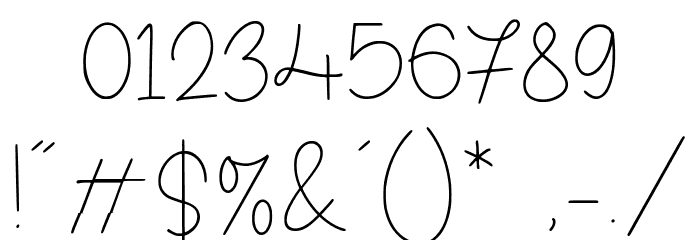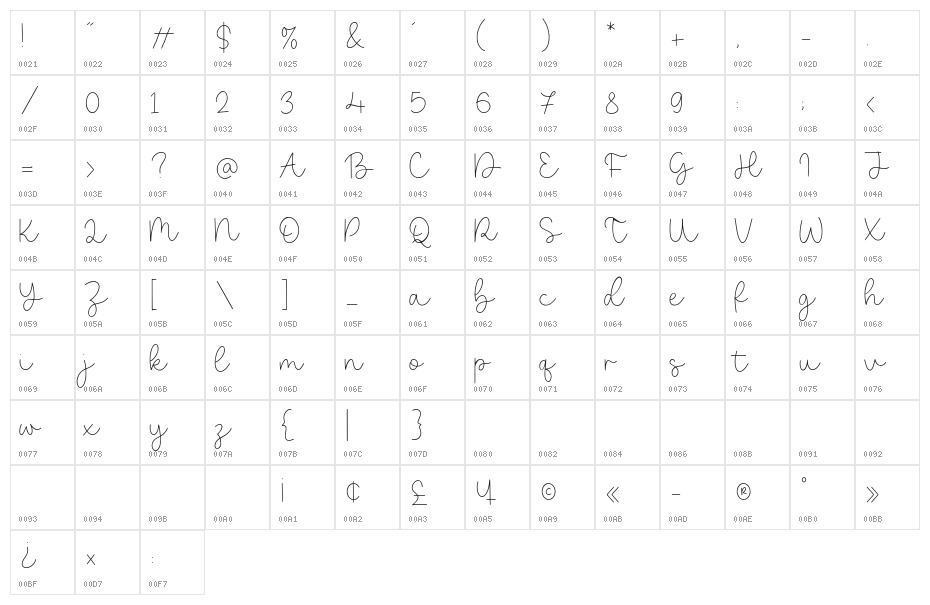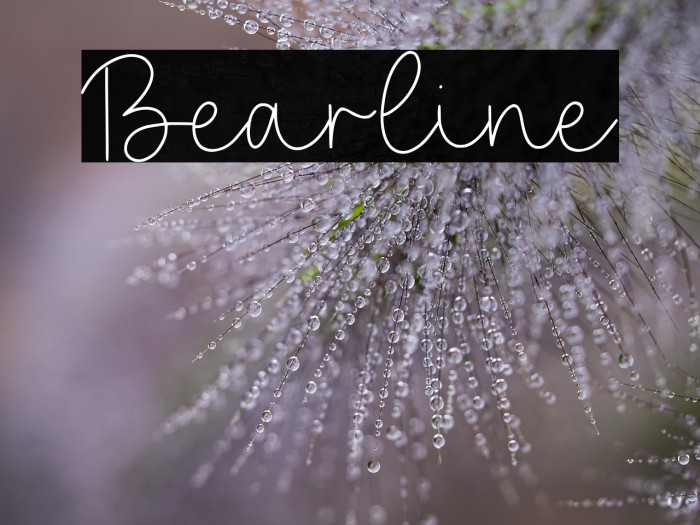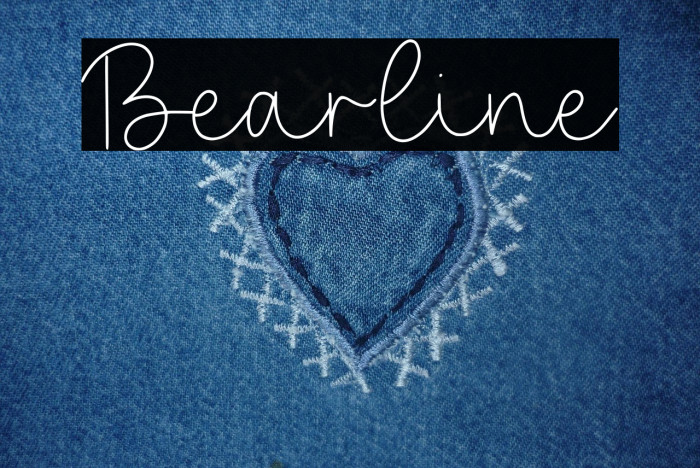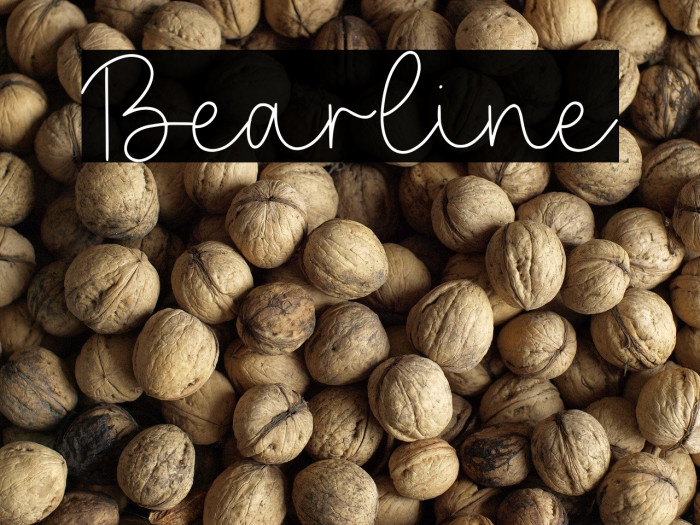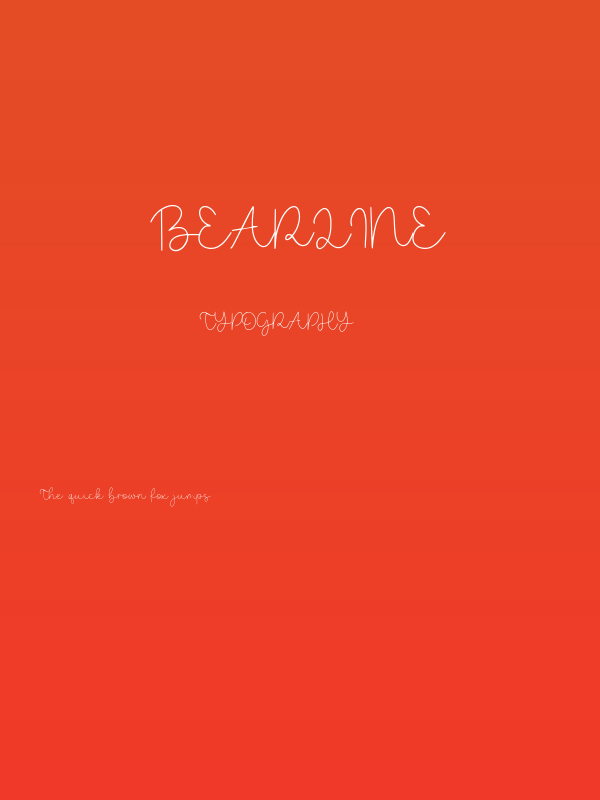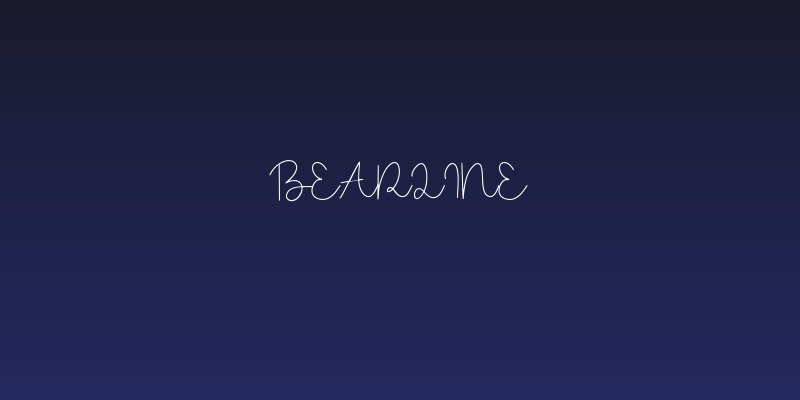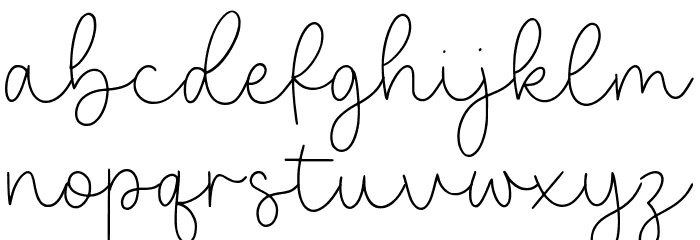
Bearline Font
Bearline Description
This font features a delicate and flowing script style, characterized by its smooth, continuous strokes and elegant curves. The letters are interconnected, creating a harmonious and cohesive appearance. The uppercase letters are slightly more ornate, with subtle flourishes that add a touch of sophistication. The lowercase letters maintain a consistent height, contributing to the font's readability. Numbers and special characters are designed to match the overall aesthetic, with a playful yet refined look. This font exudes a sense of elegance and charm, making it suitable for a variety of creative applications.
| Proposed Projects | Ideal for wedding invitations, greeting cards, branding, and elegant packaging designs. |